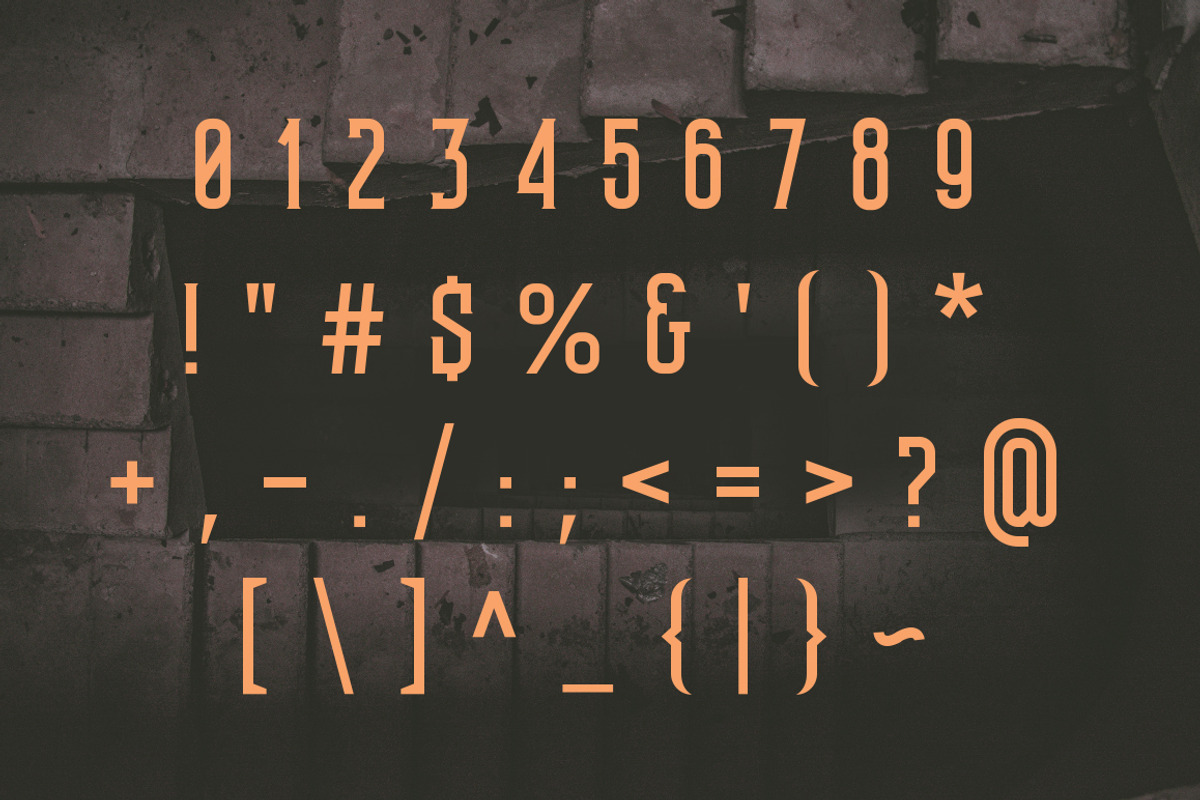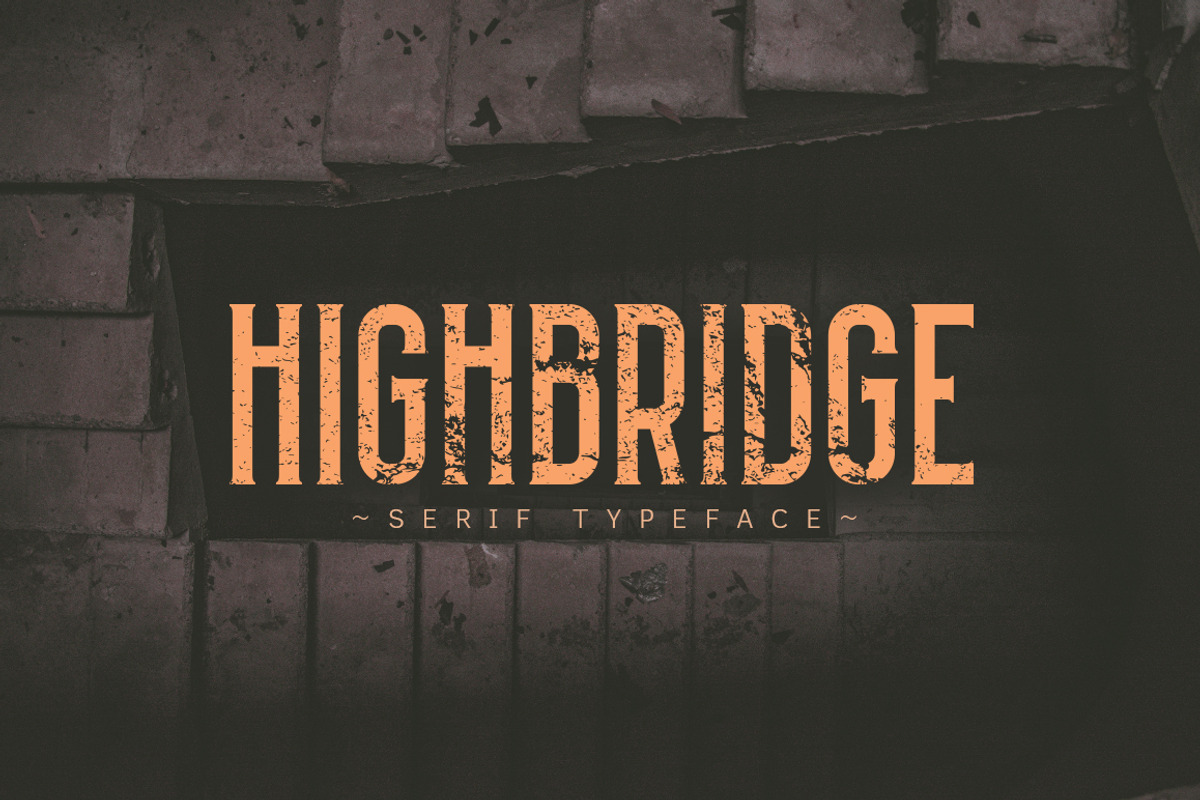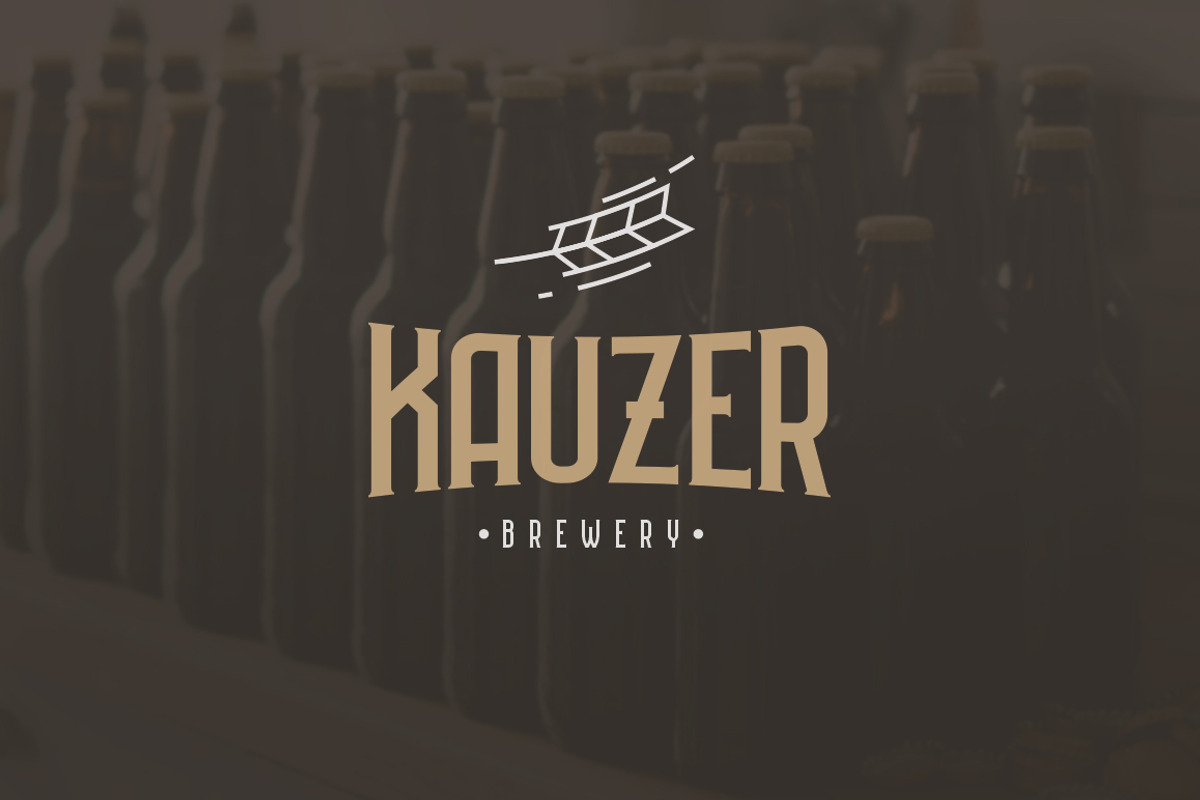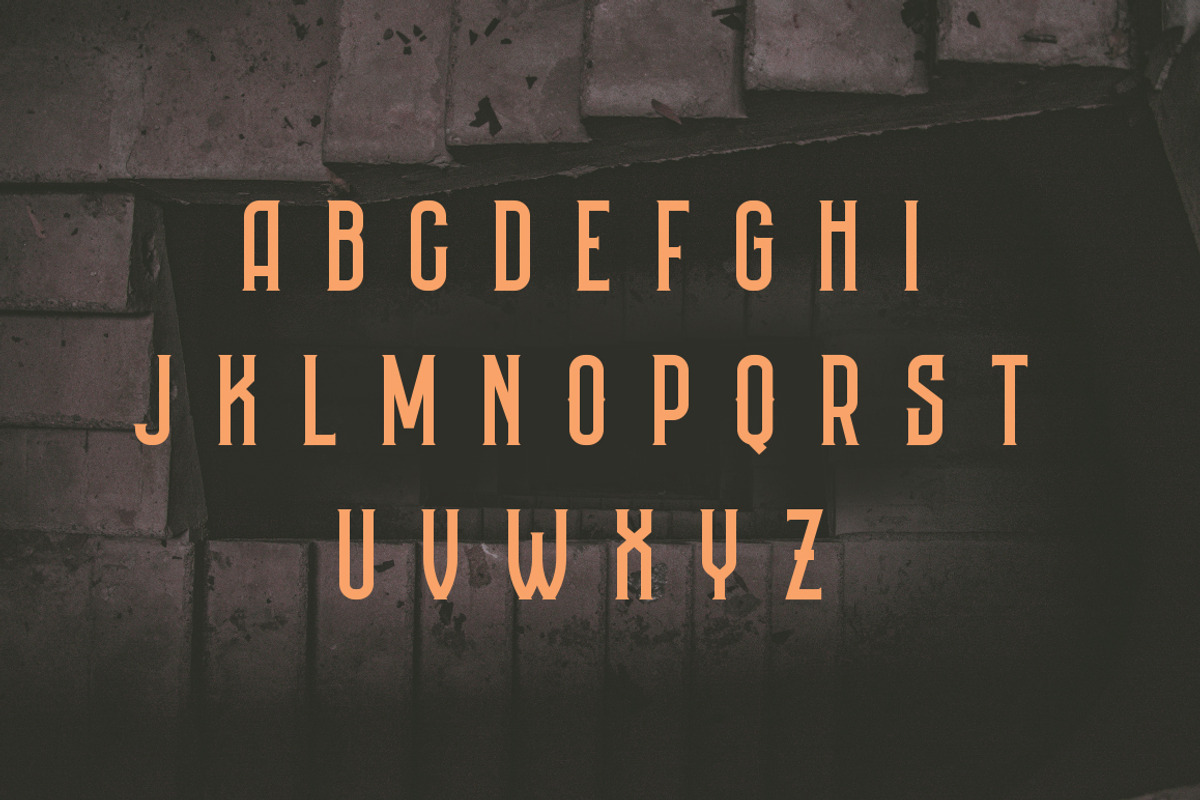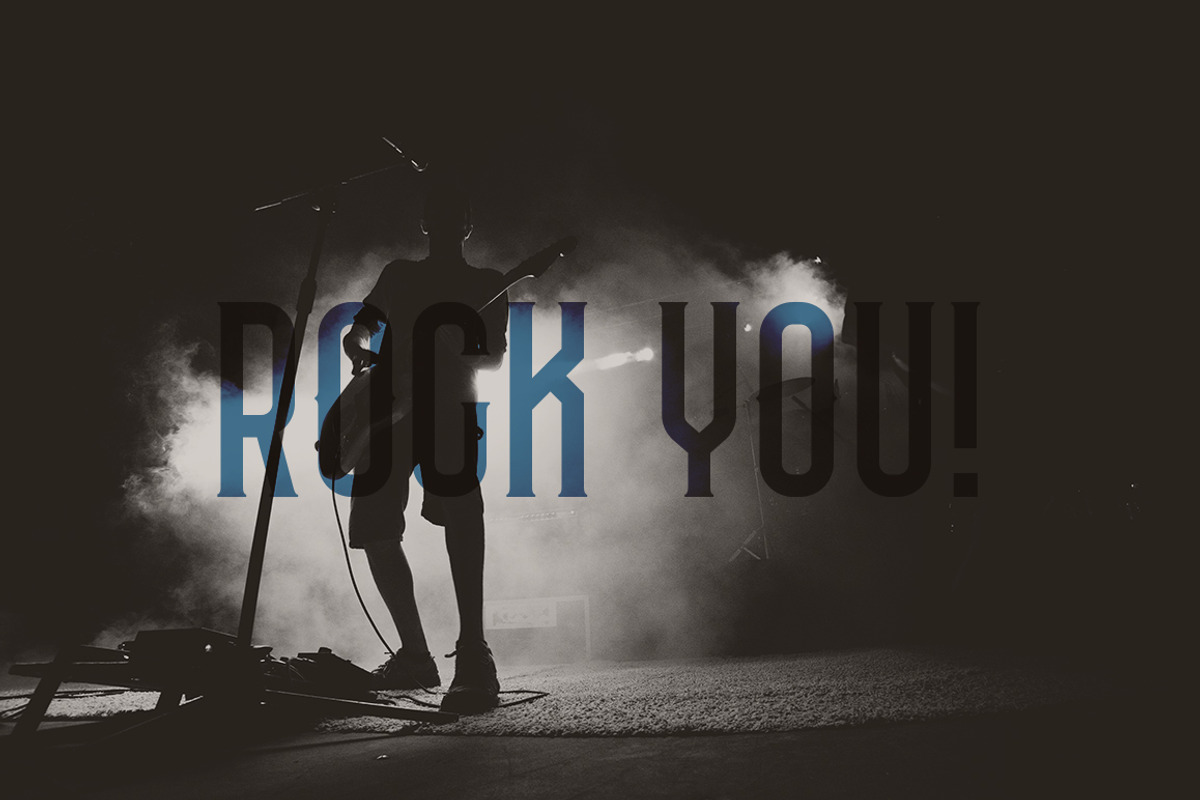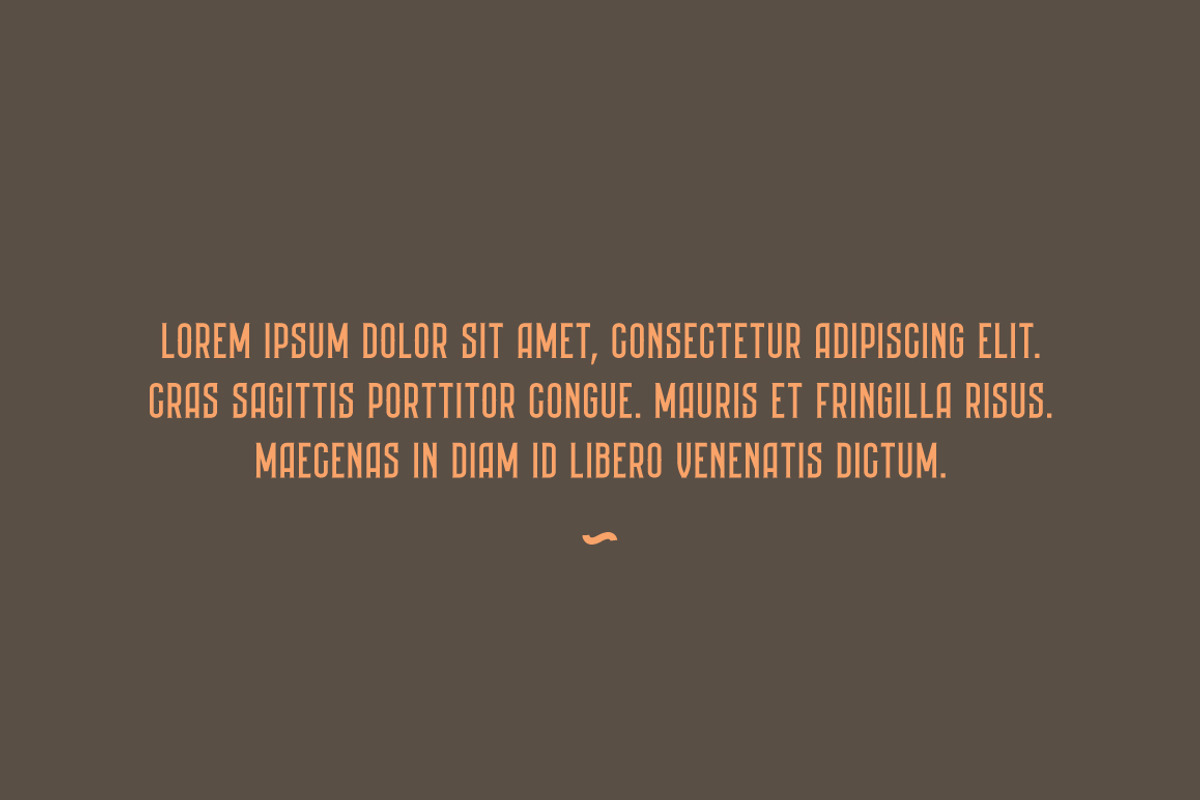
HIGHBRIDGE Typeface
HIGHBRIDGE Typeface by kulturrrno is a font selected for branding, posters, packaging, typography.
Why HIGHBRIDGE Typeface is worth a look
HIGHBRIDGE Typeface by kulturrrno fits naturally into Branding, posters, packaging, typography.